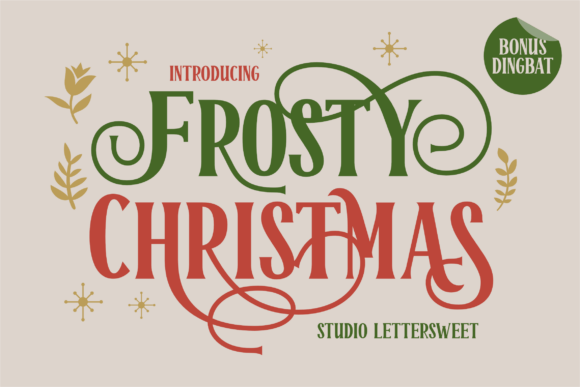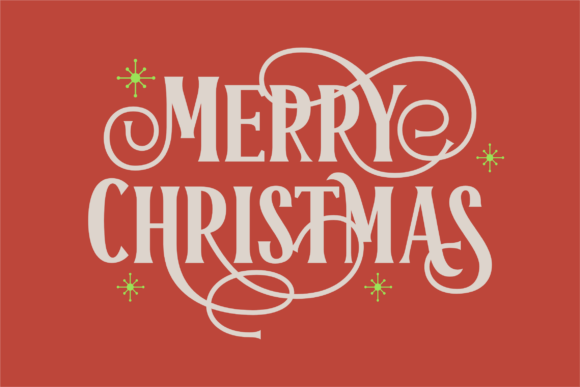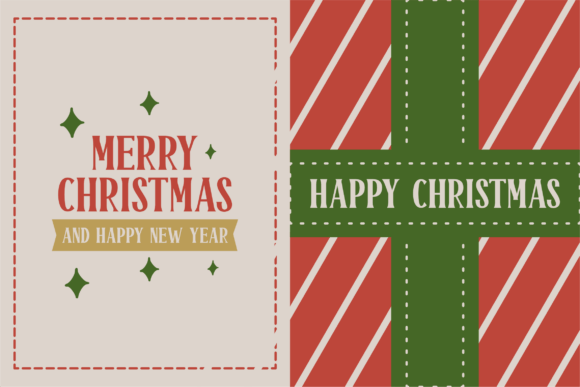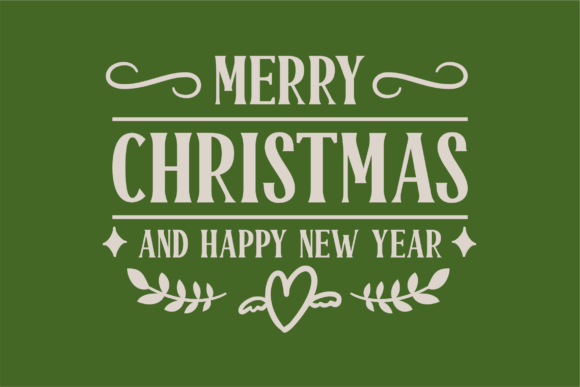
Frosty Christmas Font
About the Frosty Christmas Font
Experience the unique personality of Frosty Christmas Font, a font designed for impact. Frosty Christmas Font is a festive and elegant typeface that captures the magic of the holiday season. With its decorative swirls and vintage-inspired serifs, this font is perfect for creating warm, joyful designs. The extra embellishments and bonus dingbats add a playful touch, making your holiday designs even more enchanting and memorable. Celebrate the season with the timeless charm of Frosty Christmas!
Frosty Christmas Font’s decorative nature makes it ideal for headlines, short text blocks on holiday cards, or festive packaging designs. Its playful embellishments are well-suited for branding projects related to gifts, sweets, or winter-themed events. However, avoid using it for body text or UI elements; the intricate details would hinder readability in continuous paragraphs or small screen sizes.
The font’s inherent elegance pairs well with clean sans-serif fonts like Open Sans for body copy, creating a balanced contrast. For a more vintage feel, consider pairing it with a classic serif like Garamond. A script font like Great Vibes can add a touch of handwritten charm to invitations or festive banners when used sparingly.
Frosty Christmas Font exudes a joyful and slightly whimsical personality, best suited for projects requiring a touch of vintage charm and festive cheer. Its elegant flourishes and playful details lend themselves to a lighthearted and celebratory aesthetic.
Frosty Christmas Font Usage Examples
Frosty Christmas Font Example